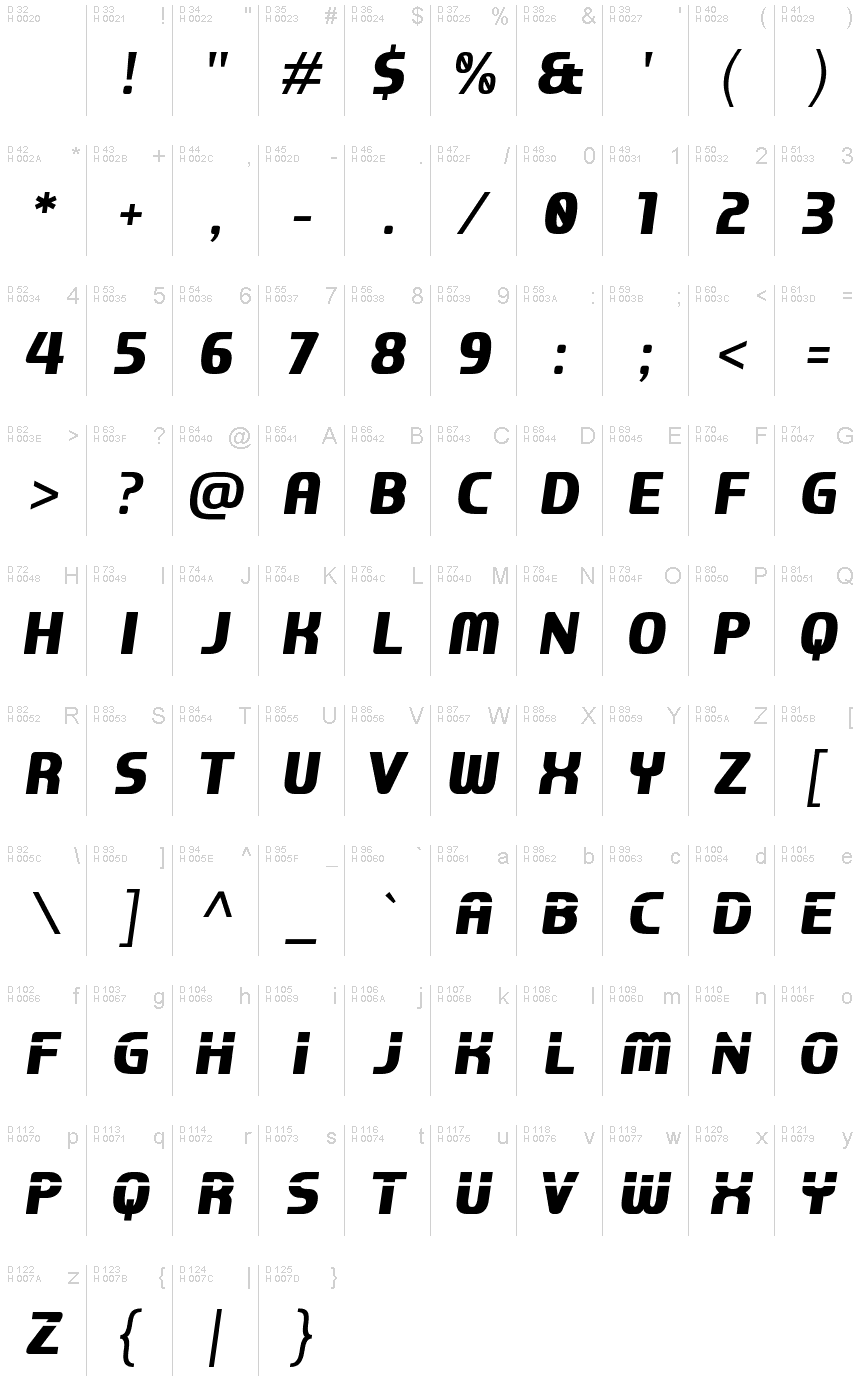
Lightyour Regular
Lightyour, designed by Faqih Fawaji, is a display font that adds a futuristic touch to any project. With its bold weight and techno style, this font is perfect for creating eye-catching headings and titles in sci-fi or tech-related projects. The unique design of Lightyour makes it suitable for use in branding, packaging, gaming interfaces, or even in movie titles. Its distinctiveness will leave a lasting impression on your audience and give your project an innovative edge. Try Lightyour today and add an extra touch of modernity to your next creative venture!